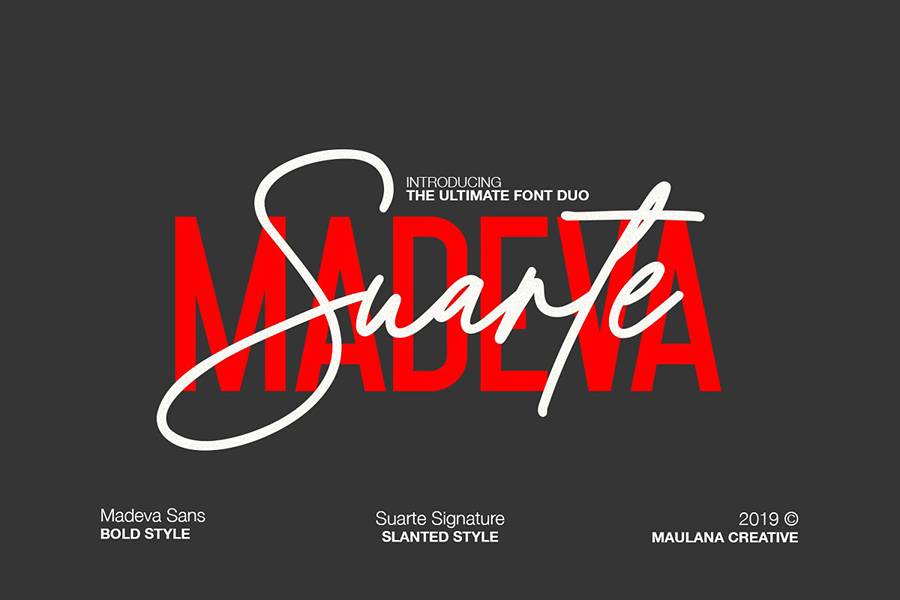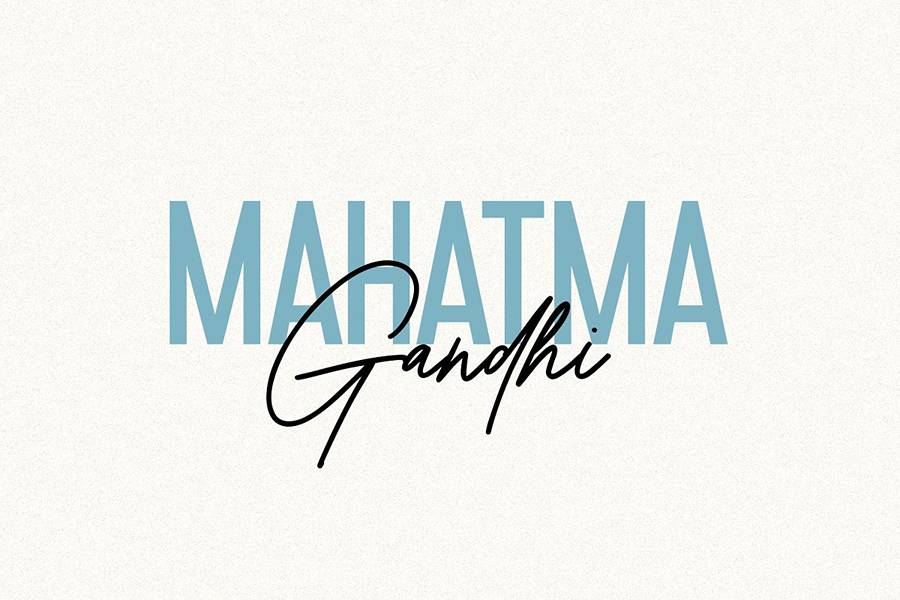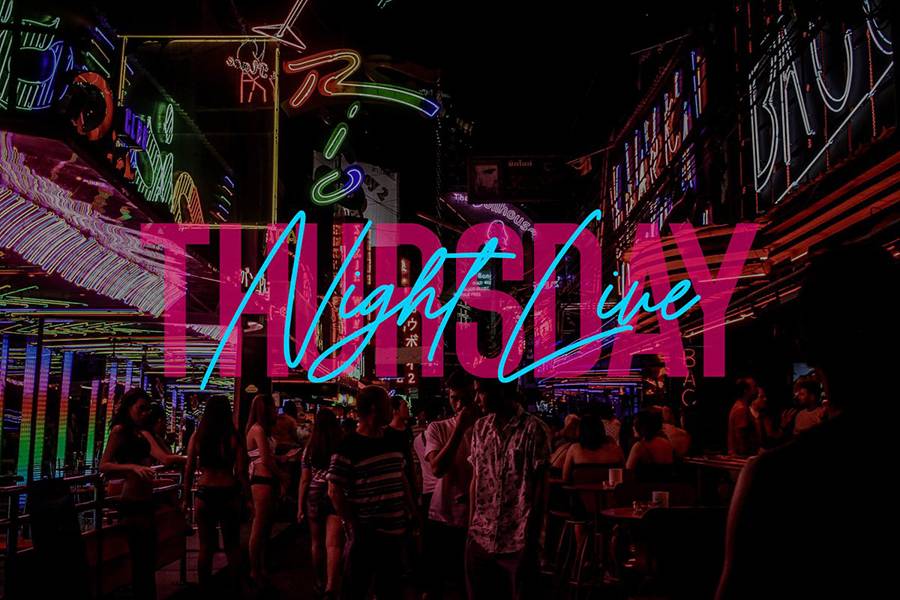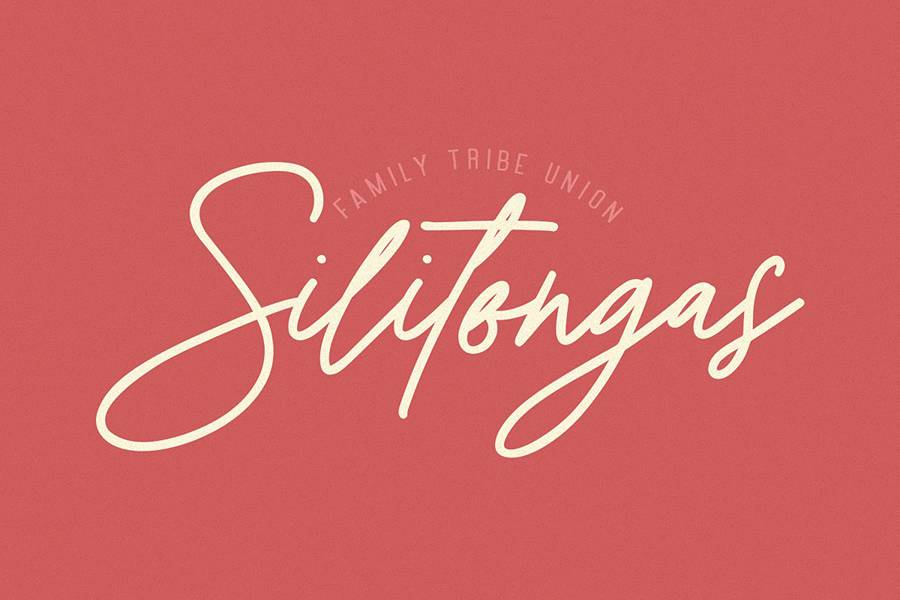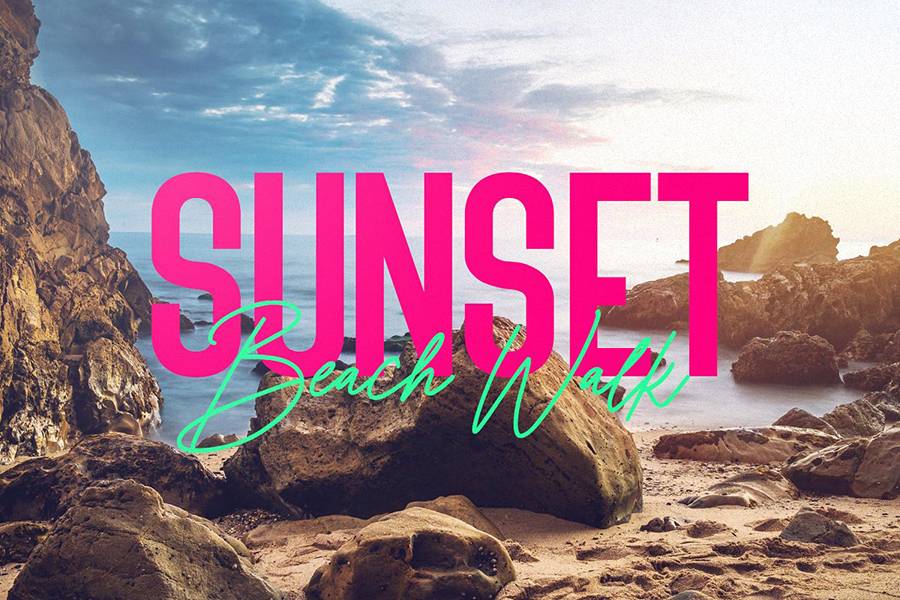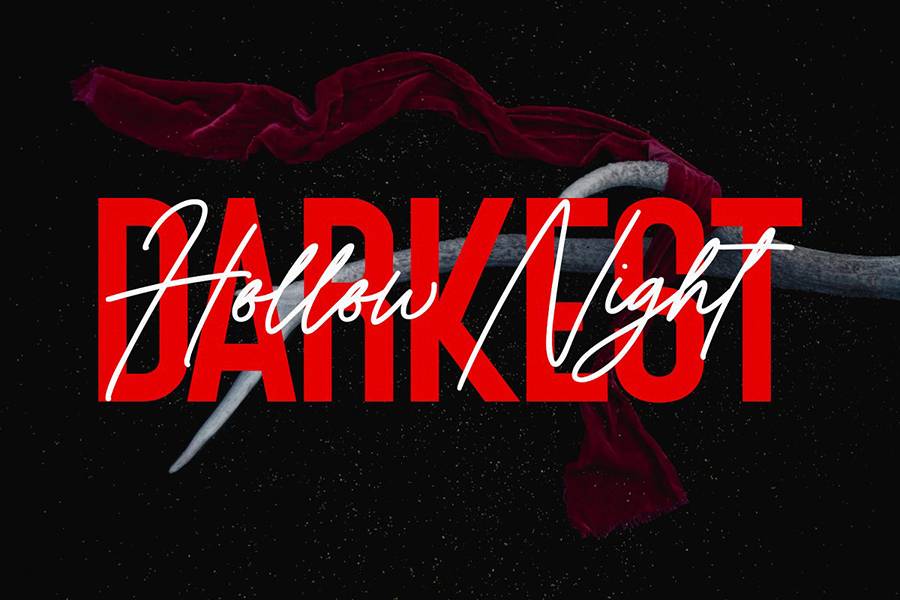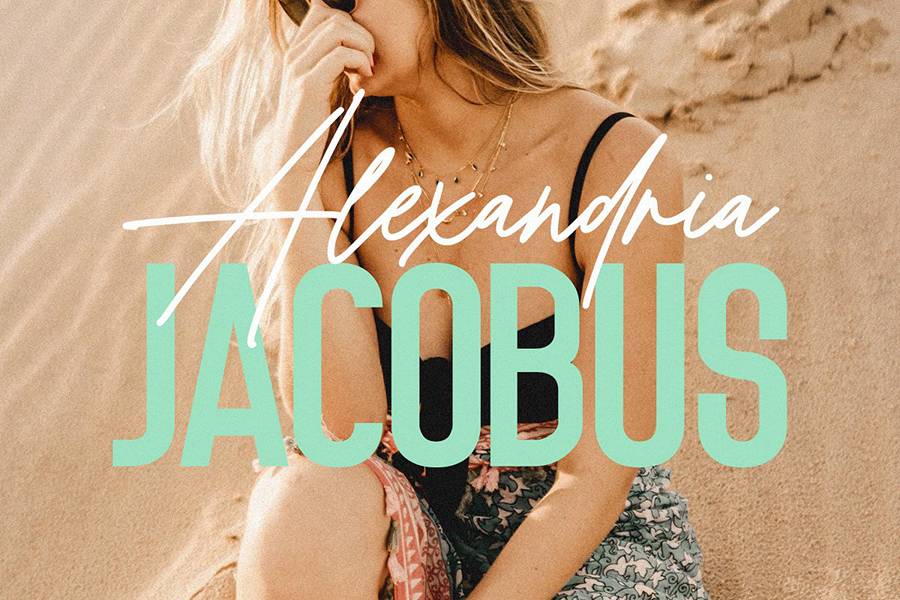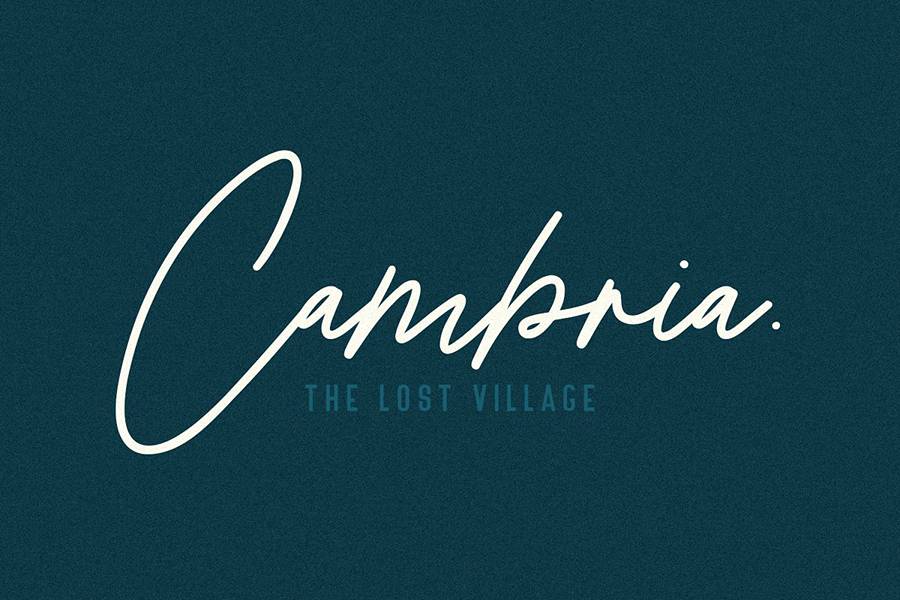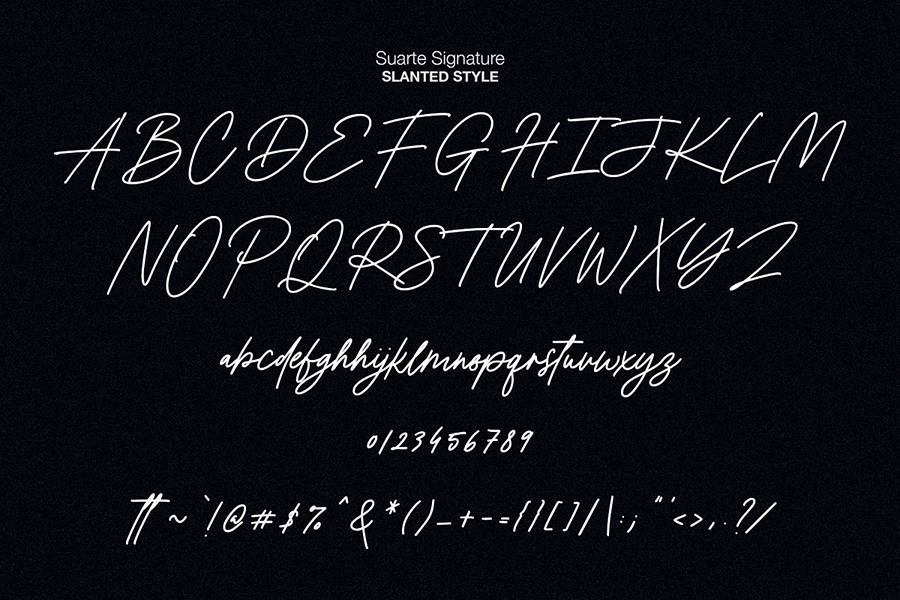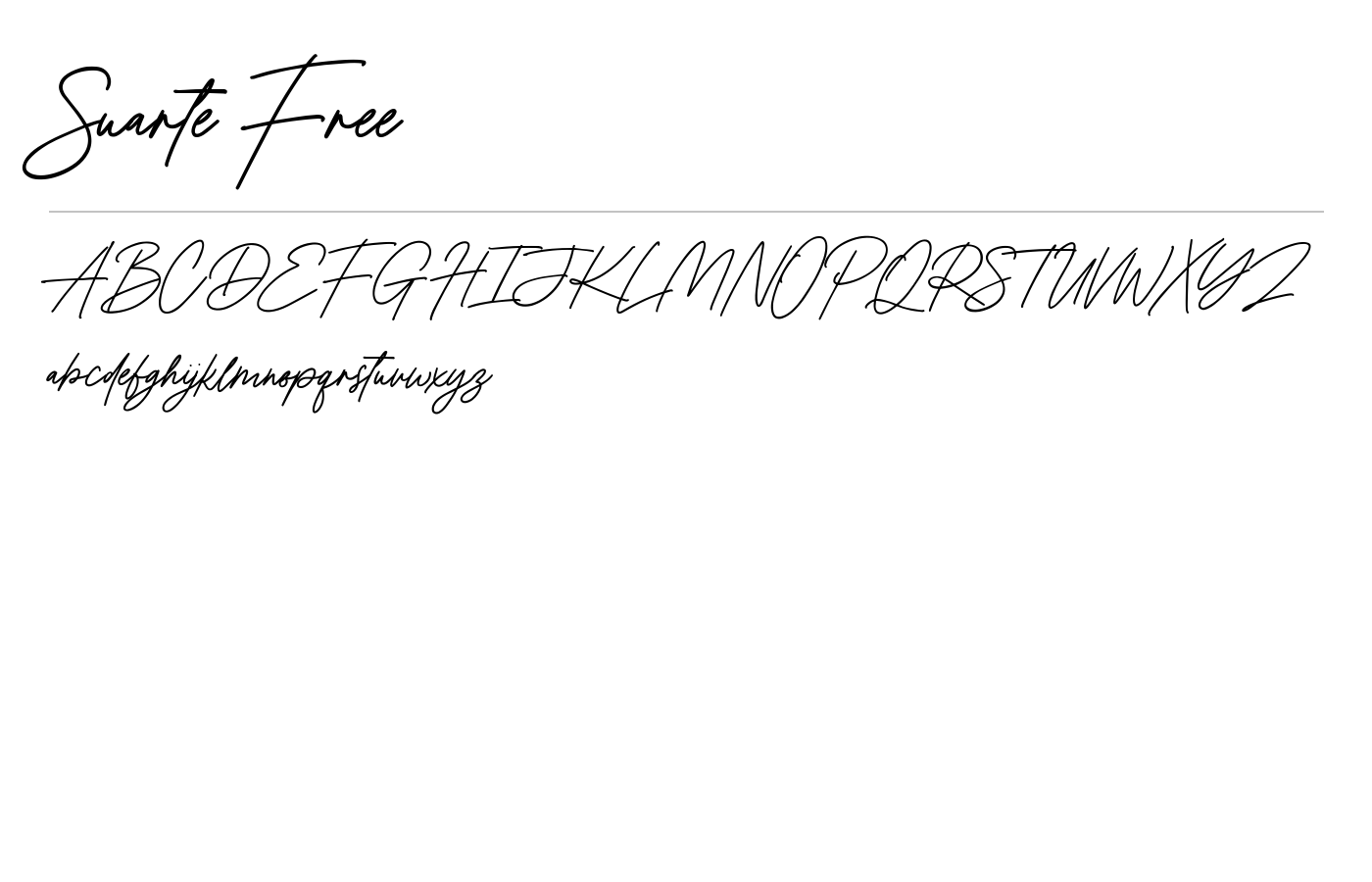
Suarte Signature Font Demo is a graceful, handwritten script font that mimics natural signature-style writing with a refined, elegant touch. Its thin, fluid strokes and airy letter spacing give it a modern, personal feel, making it perfect for branding, invitations, and stylish logos where a sophisticated yet approachable look is desired. This font works especially well in contexts where a unique, handcrafted aesthetic is valued.
Suarte Signature Font Demo
About Suarte Signature Font Demo
| Font family | Suarte Signature Font Demo |
| Release date | 2019-07-20 |
| Designer | MaulanaCreative |